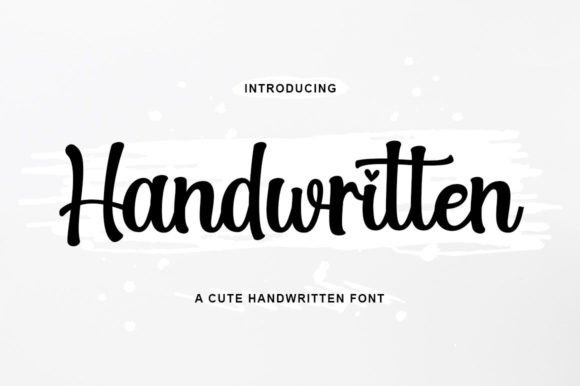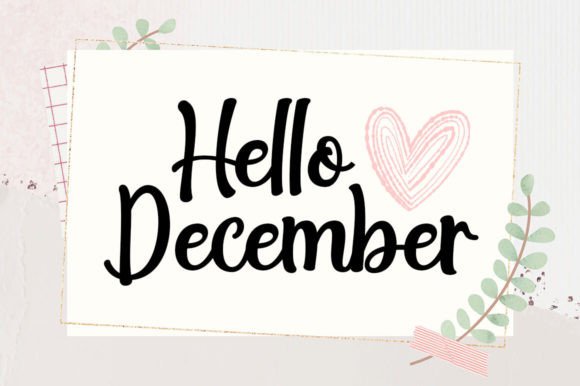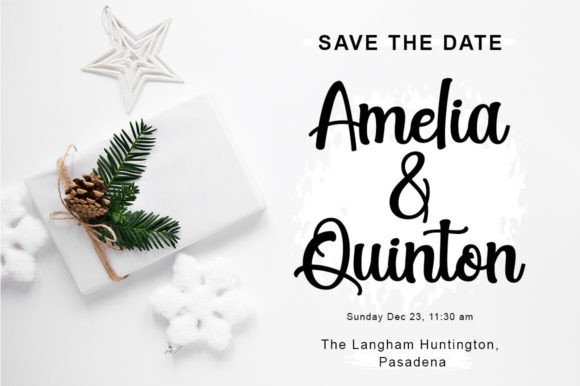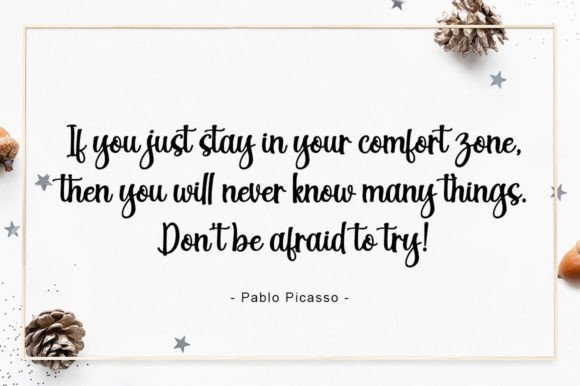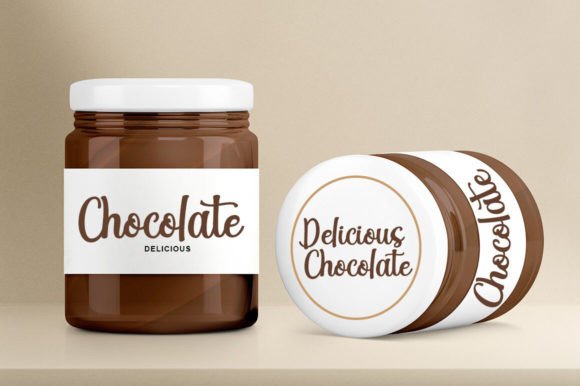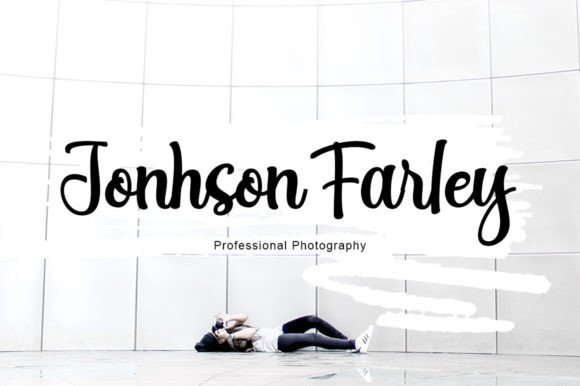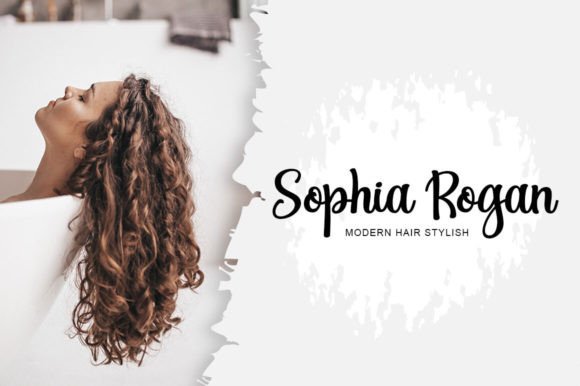
Handwritten Font
Handwritten is a bouncy and cute handwritten script font. It is fun, playful, and quirky.
This font is suitable for design with simple handwritten touches, such as wedding designs, invitations, birthdays, t-shirt designs, crafting, stickers, sublimation, and many more.